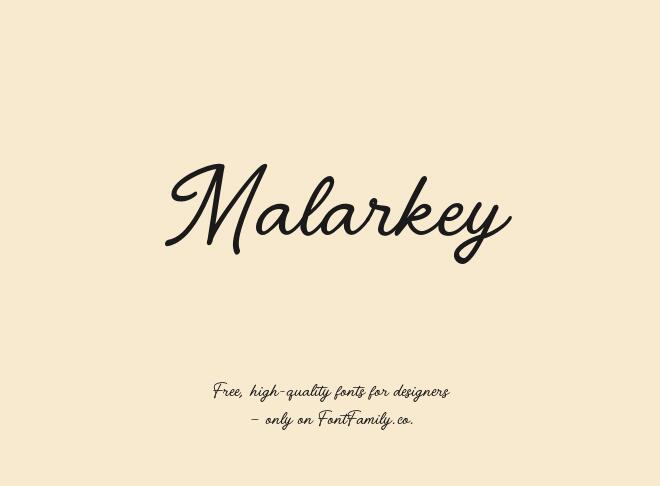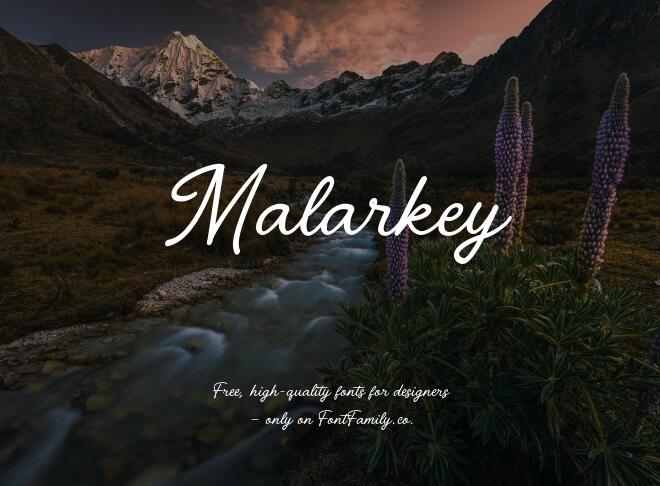
Malarkey Font
Malarkey Font is a playful, modern typeface with a handwritten touch. Developed by Creative Foundry in 2019, Malarkey Font has a vibrant personality that shines through in its unique characters. Its playful nature is perfect for comic book lettering, children's book illustrations, playful branding, and casual display use. This font is a great alternative to the usual handwritten fonts, offering a more authentic and organic feel. Its modern twist makes it highly versatile and suitable for a wide range of projects. With Malarkey Font, designers can add a touch of fun and creativity to their designs, making their projects stand out. Its free license for personal use makes it a great choice for hobbyist designers and students.